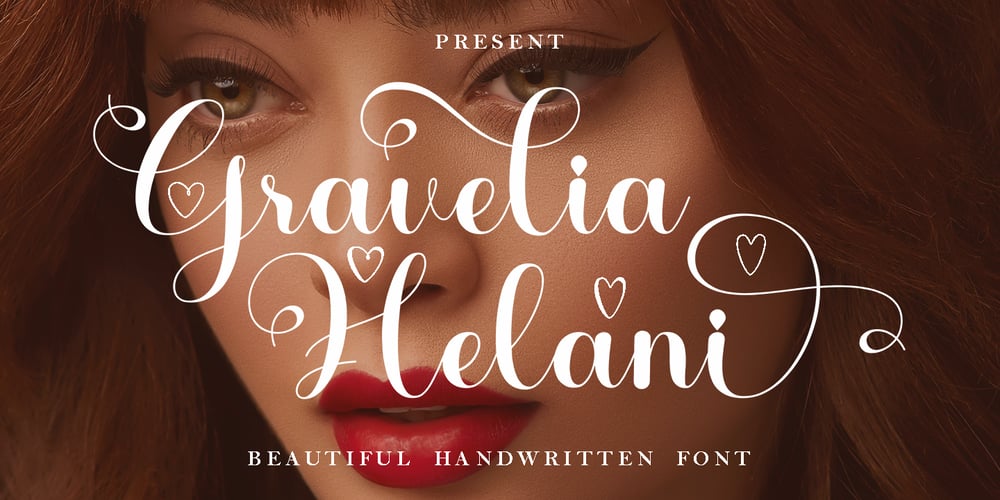
Gravelia Helani Font Family was designed by Teuku Bustami and published by TM Type. Gravelia Helani contains 1 styles and family package options. Gravelia Helani is a beautiful and light handwritten font with a unique feel and a stunning impact. It will add a luxury spark to any design project that you wish to create! This font is PUA encoded which means you can access all of the amazing glyphs and ligatures with ease!